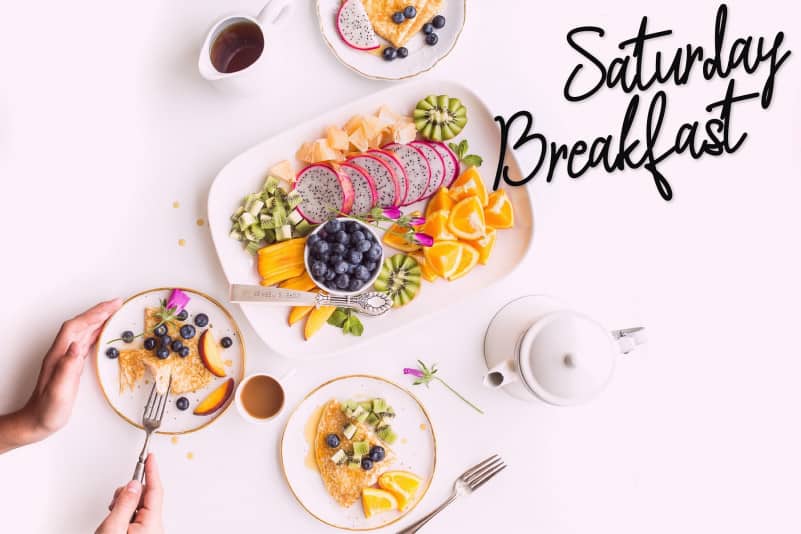
A Question – Handwritten Font
Say hello to “A Question” – a stylish signature handwritten font!
With its smooth curves and modern handwritten vibe, A Question is designed to bring an elegant, personal touch to any project. Whether you’re working on wedding invitations, branding, quotes, logos, product packaging, or social media designs, this font will make your work shine with personality.